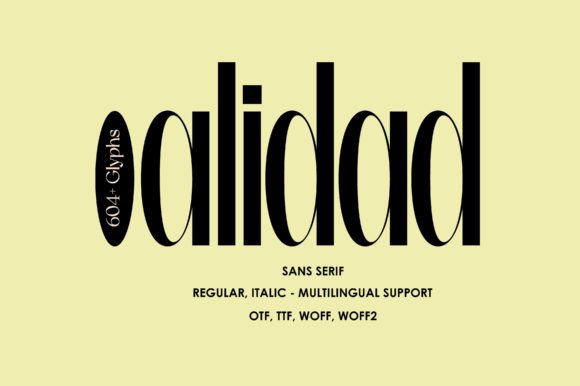
Introducing Alidad, a graceful and stylish sans serif font that exudes elegance and modern minimalism. Crafted with precision and fluidity, Alidad empowers you to create designs that captivate and allure. Its exquisite curves and delicate lines dance across your screen, leaving a trail of sophistication and charm.
With over 604 glyphs at your disposal, Alidad's versatility knows no bounds. Create breathtaking logos, design captivating websites, and bring your publishing projects to life with its extensive character set. Alidad's multi-lingual support opens up a world of possibilities, allowing you to connect with audiences across languages and cultures.
Whether you're an artist yearning for a font that empowers your creativity or a professional seeking to elevate your designs, Alidad is your perfect companion. Its delicate design lends a touch of sophistication to branding, corporate identity, and editorial layouts. Unleash your imagination and craft designs that leave an unforgettable mark.
Alidad is more than just a font; it's an invitation to embark on a journey of creative expression. Its elegant simplicity will elevate your projects, while its versatility empowers you to explore endless possibilities. Dare to discover the allure of Alidad and transform your designs into masterpieces.